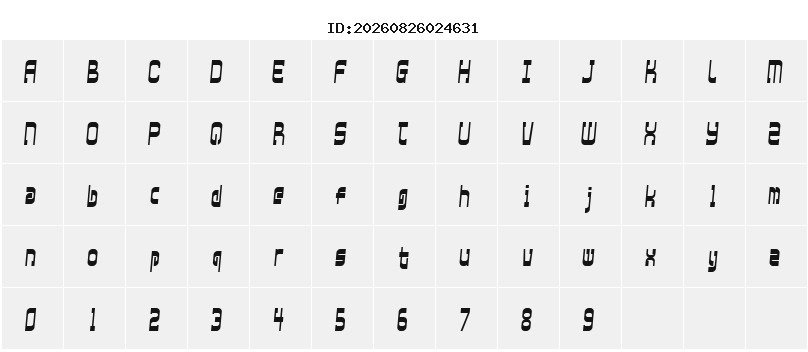
Xtraordinary Preview
• Font Name: Xtraordinary
• Full Font Name: Xtraordinary
About Xtraordinary.ttf
Xtraordinary.ttf is a modern, elegant sans-serif font designed for ultimate readability and visual harmony. Perfect for branding, headlines, web design, and print materials.